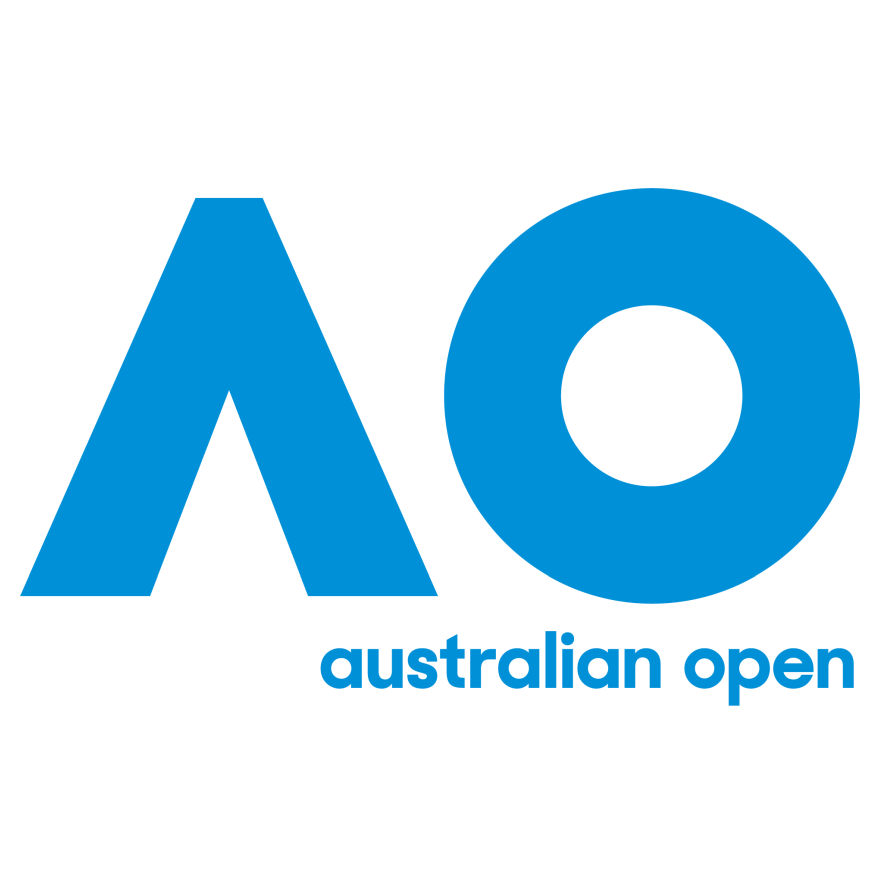
Australian Open Font
Fonts in UseThe Australian Open is a major tennis tournament that is held annually in Melbourne, Australia. It is one of the four Grand Slam tournaments, along with the French Open, Wimbledon, and the US Open. The tournament is usually held in January.
In 2016, Landor Australia created a fresh visual identity for the Australian Open, featuring a new logo and typography. The primary typeface is Sharp Sans, but the tournament also used Dax, a font created by Hans Reichel.